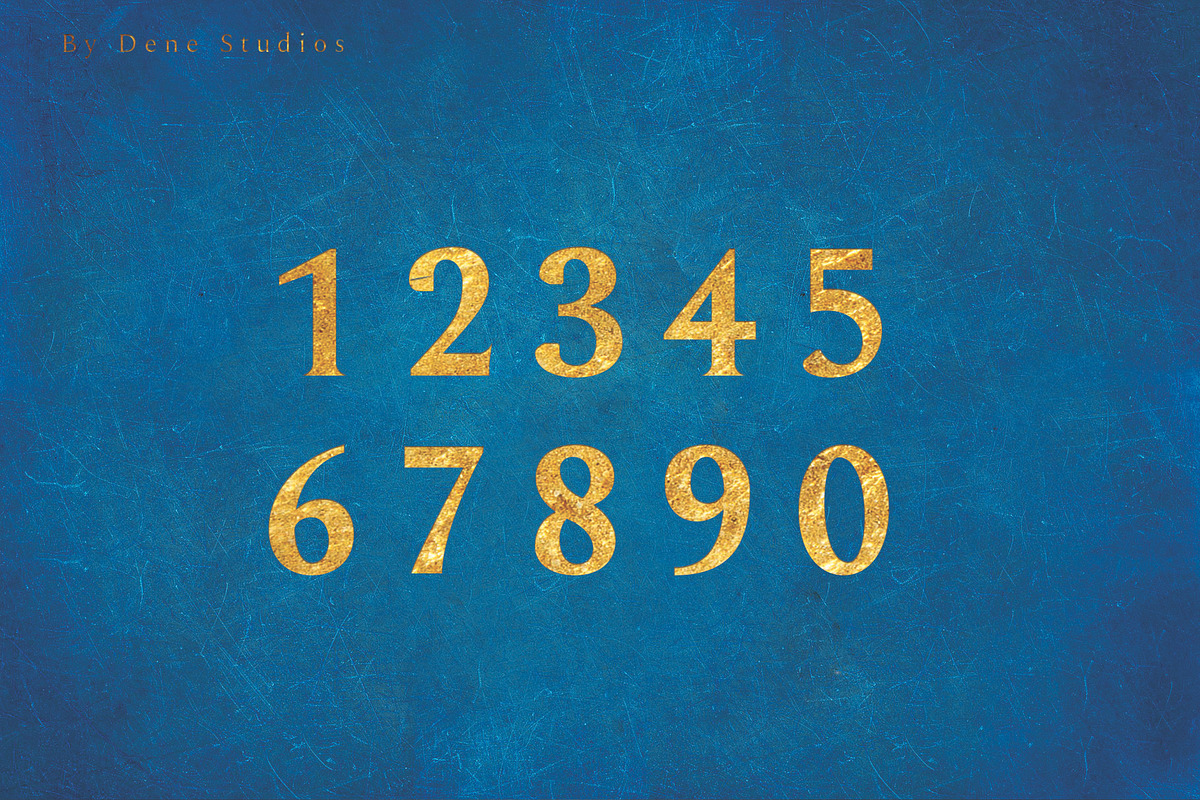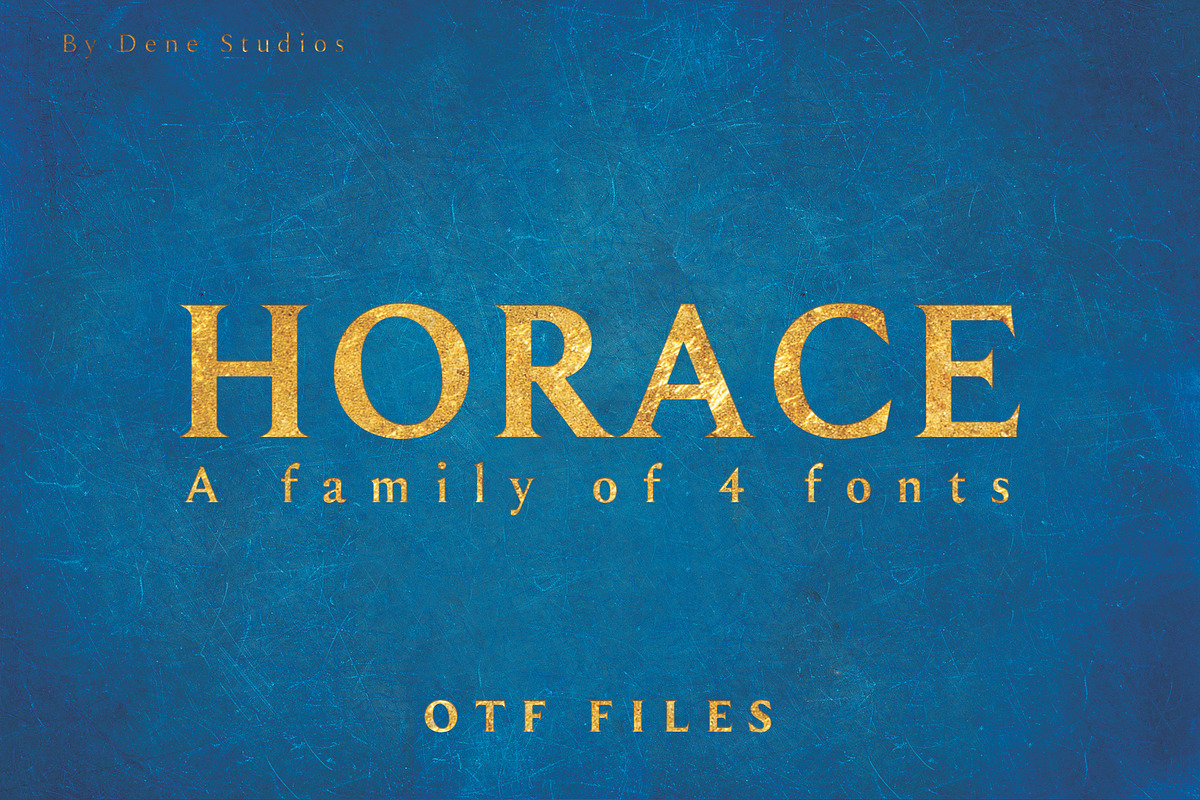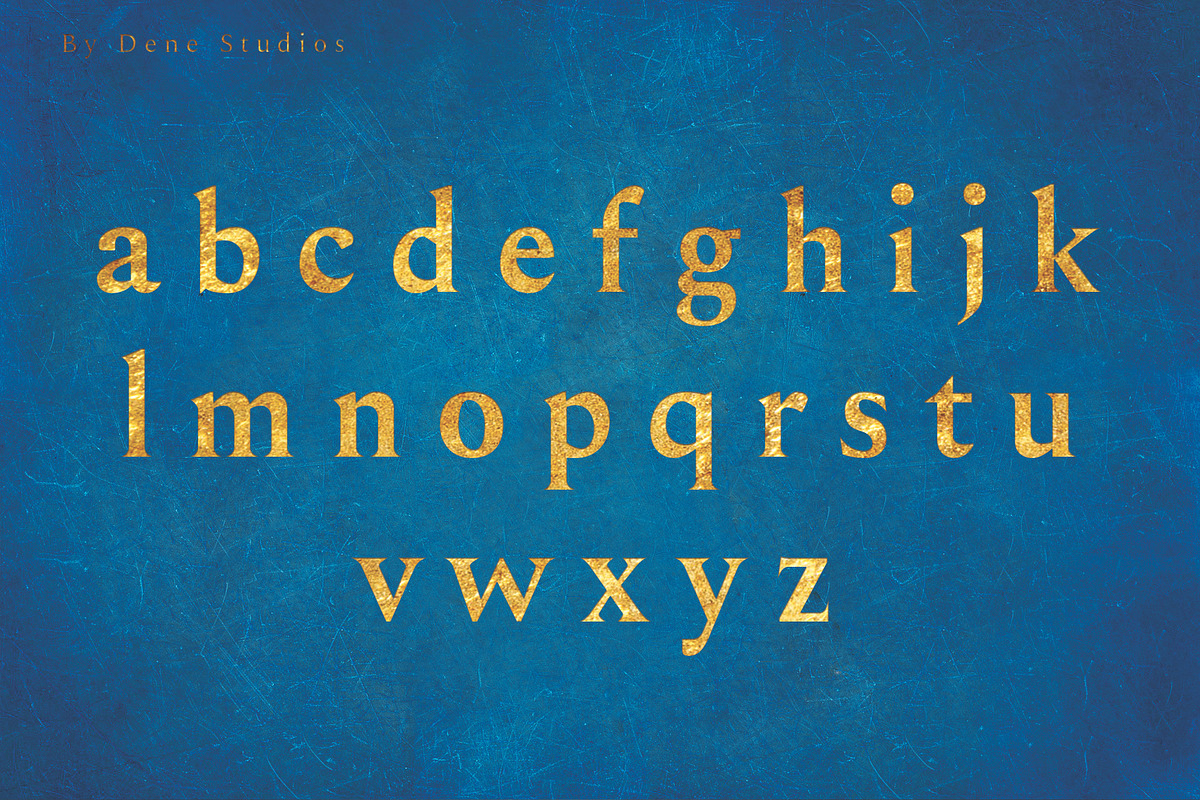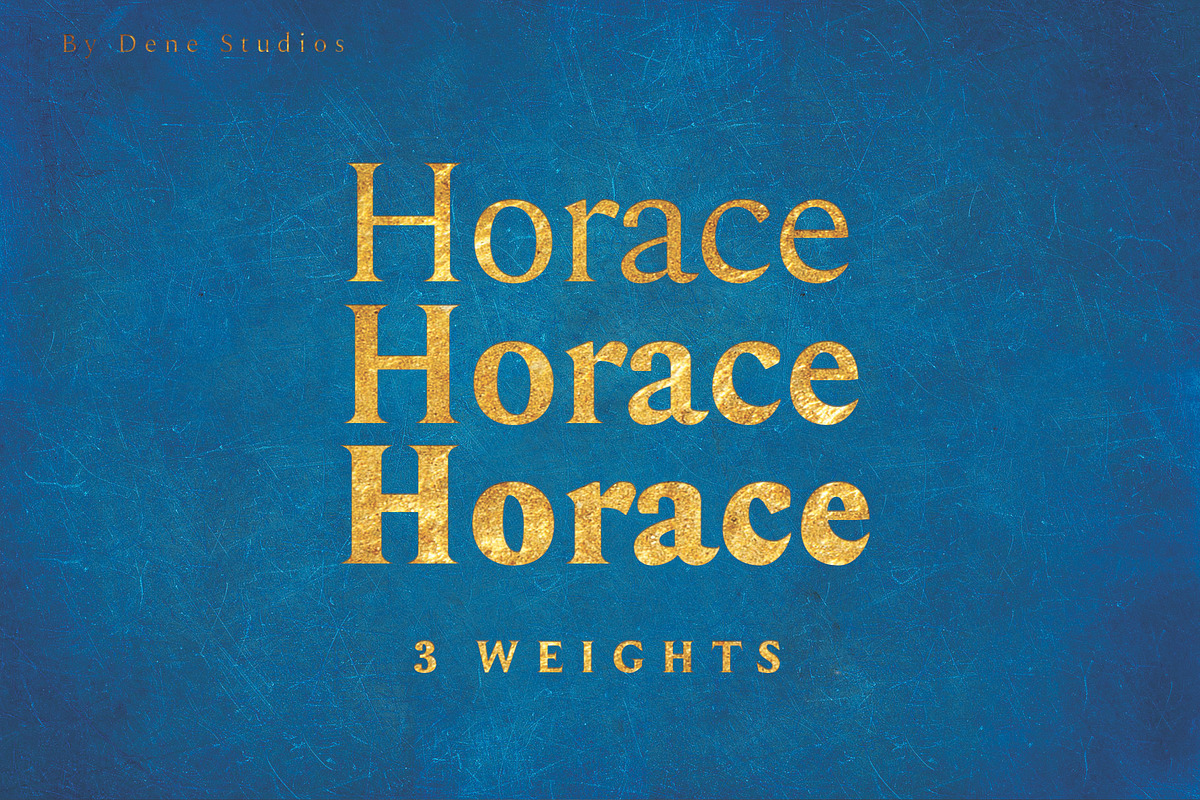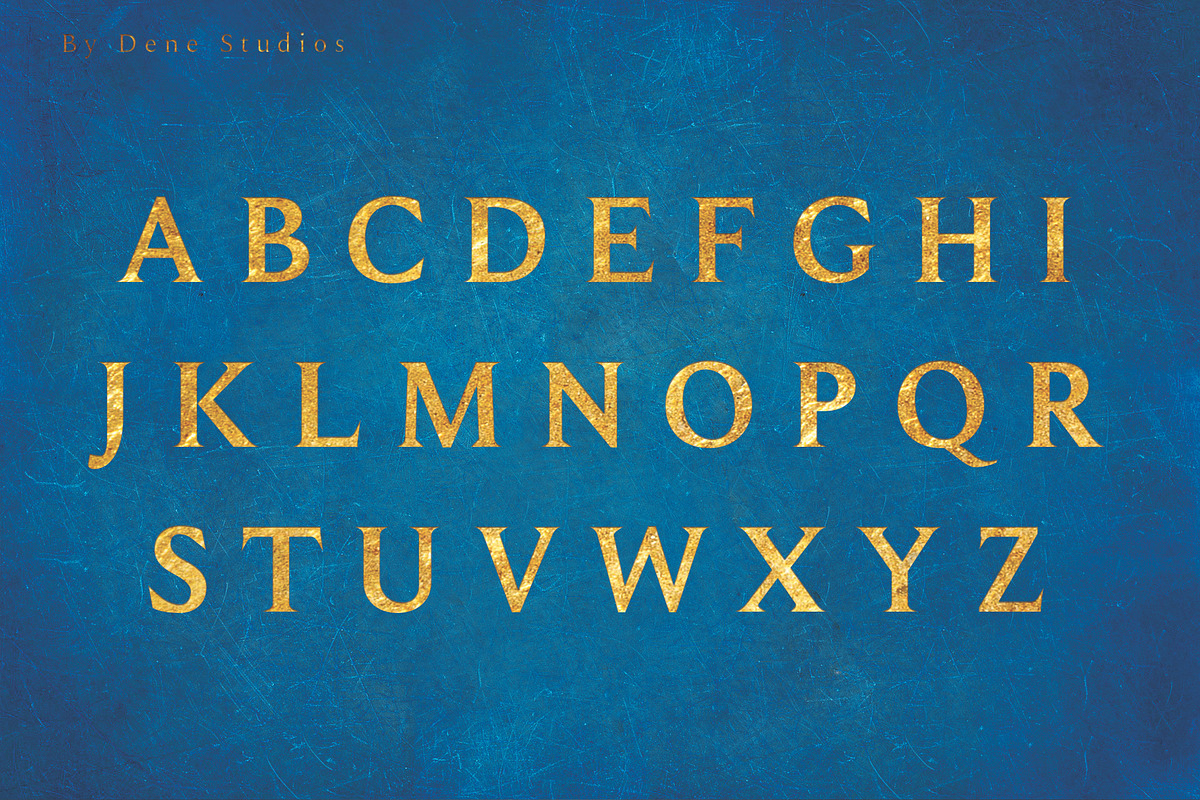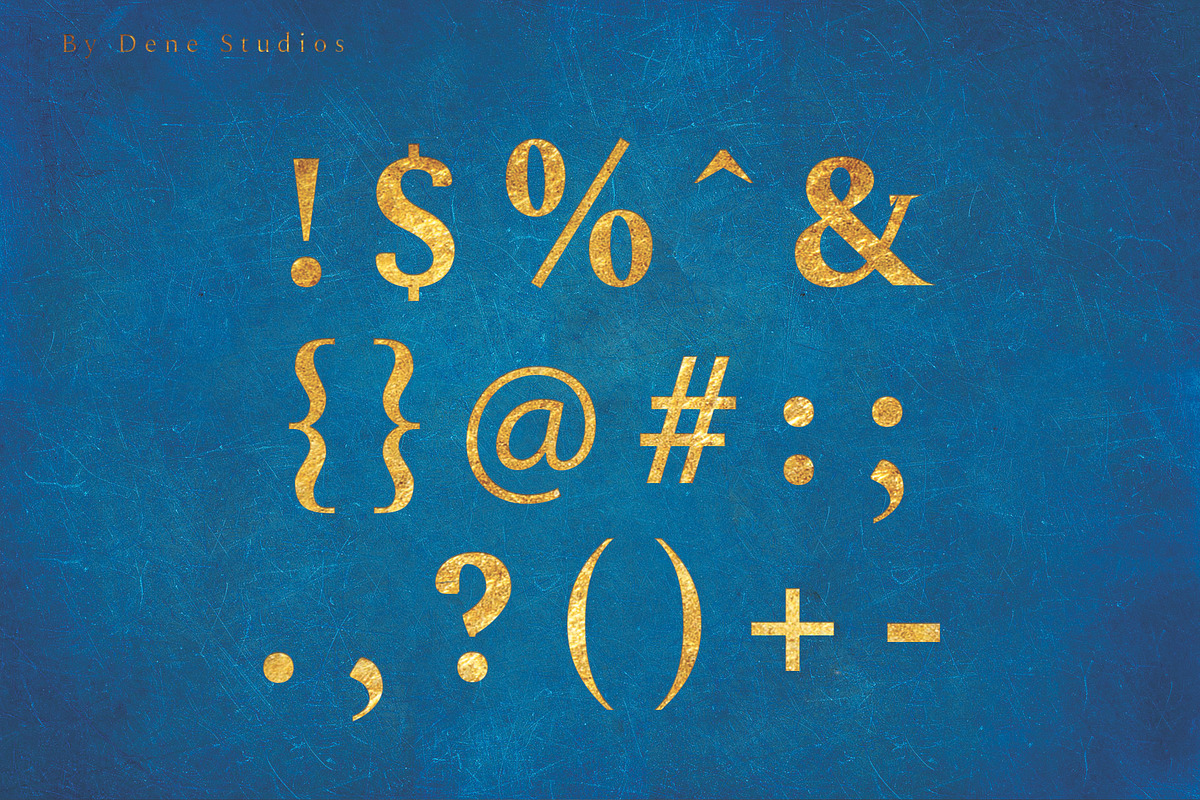
HORACE typeface
A strong yet elegant font. Horace is a modern serif type that makes it perfect for use in your design projects. Comes in regular, italics, bold and black.
- Horace comes with upper and lowercase, basic characters, numbers, marks, and punctuation.